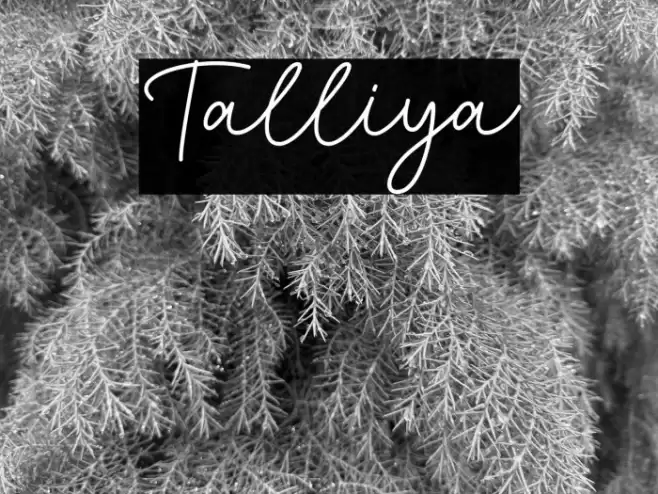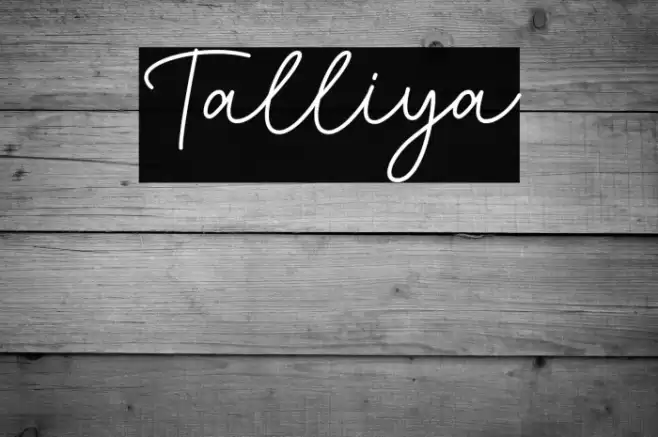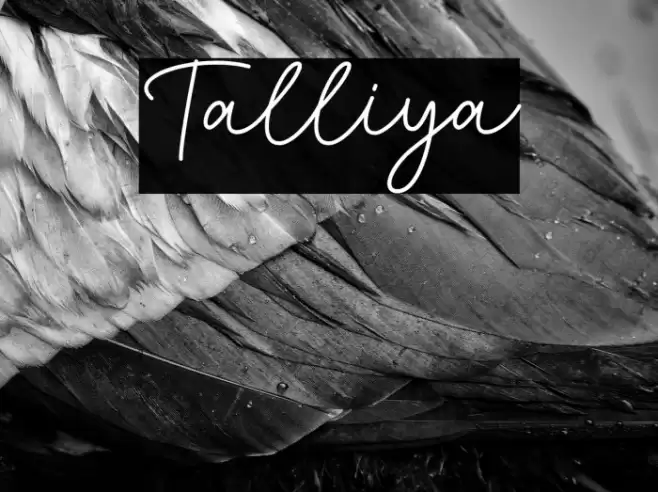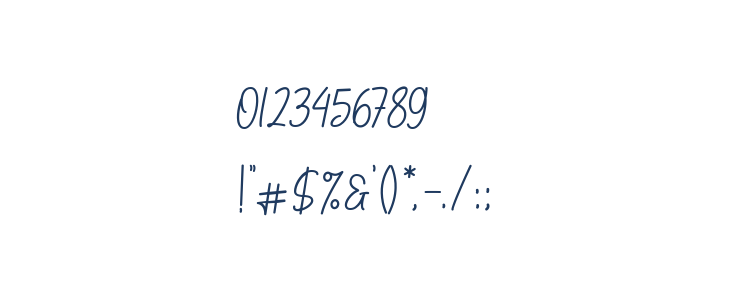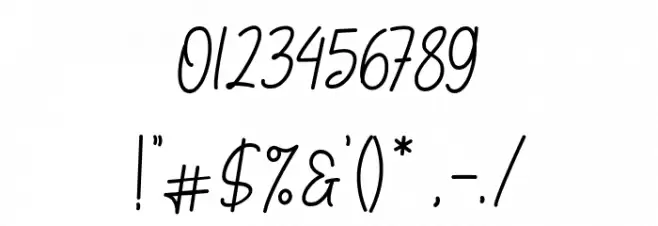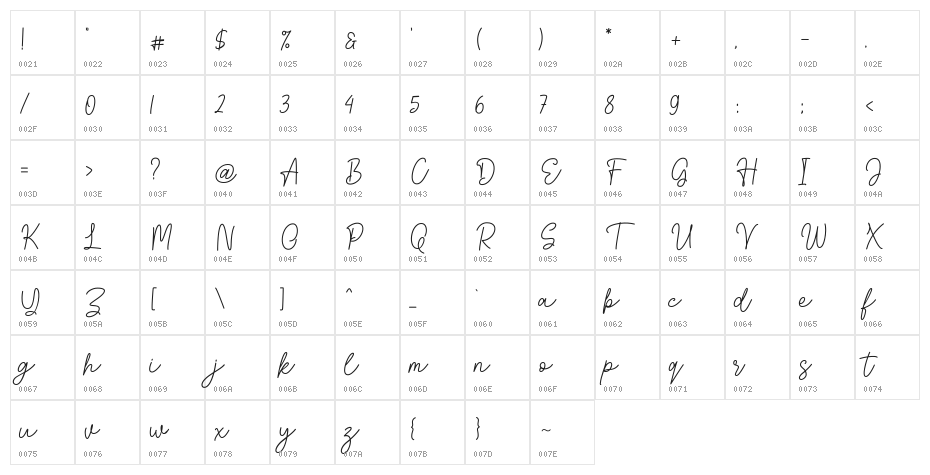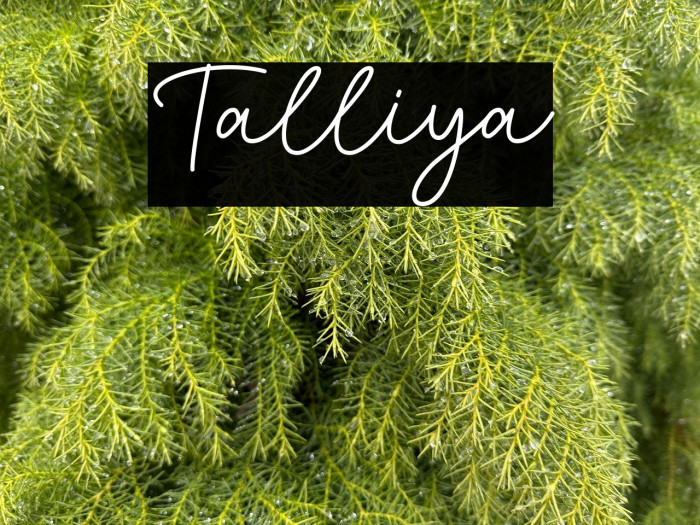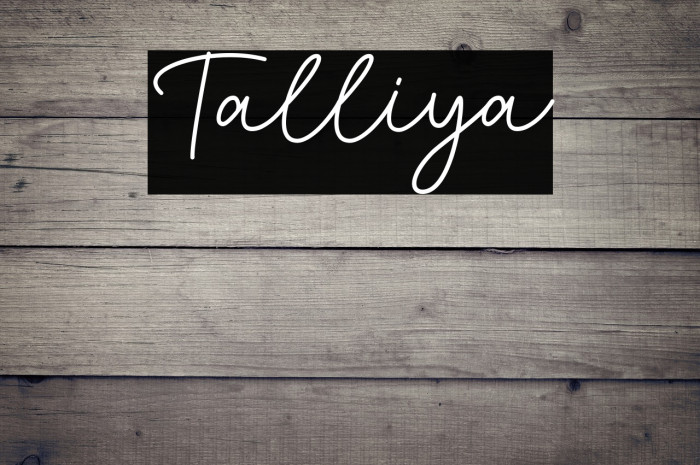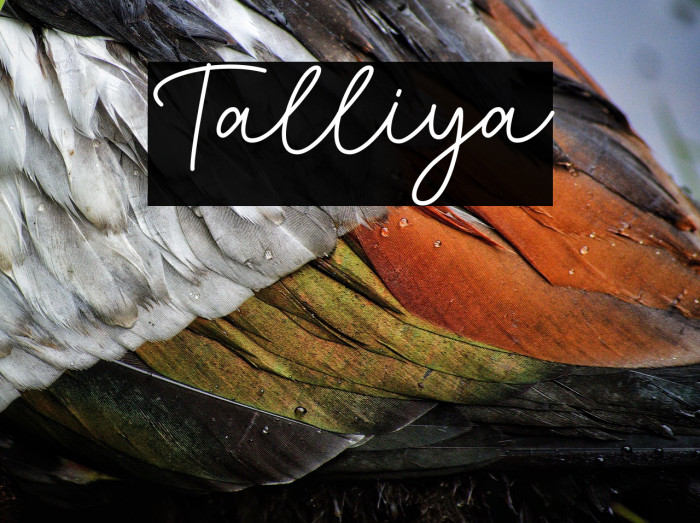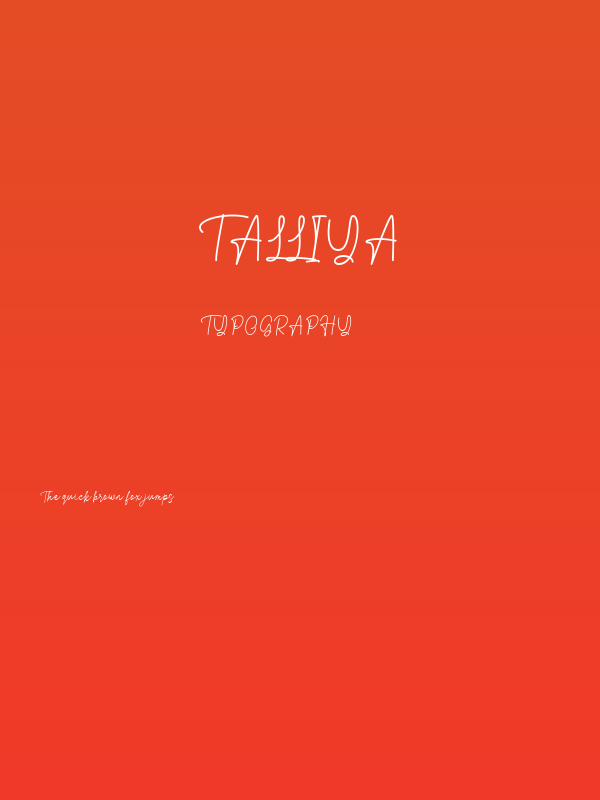
Talliya Font
Talliya Description
This font features a flowing, cursive style with a handwritten appearance. The letters are elegantly connected, giving it a smooth and continuous look. The uppercase letters are slightly more ornate, with subtle flourishes that add a touch of sophistication. The lowercase letters maintain a consistent flow, enhancing readability while retaining a personal, artistic flair. The numerals and special characters are designed to match the overall aesthetic, ensuring a cohesive look across all text. This font's delicate strokes and balanced proportions make it suitable for a variety of creative applications.
A flowing, cursive font with a handwritten, elegant style from Regular fonts.
- Font: Talliya
- Proposed Projects: Ideal for wedding invitations, greeting cards, personal branding, and artistic projects.
- Overall Style: Elegant, Artistic
- Use Case: Invitations, Personal branding, Artistic projects